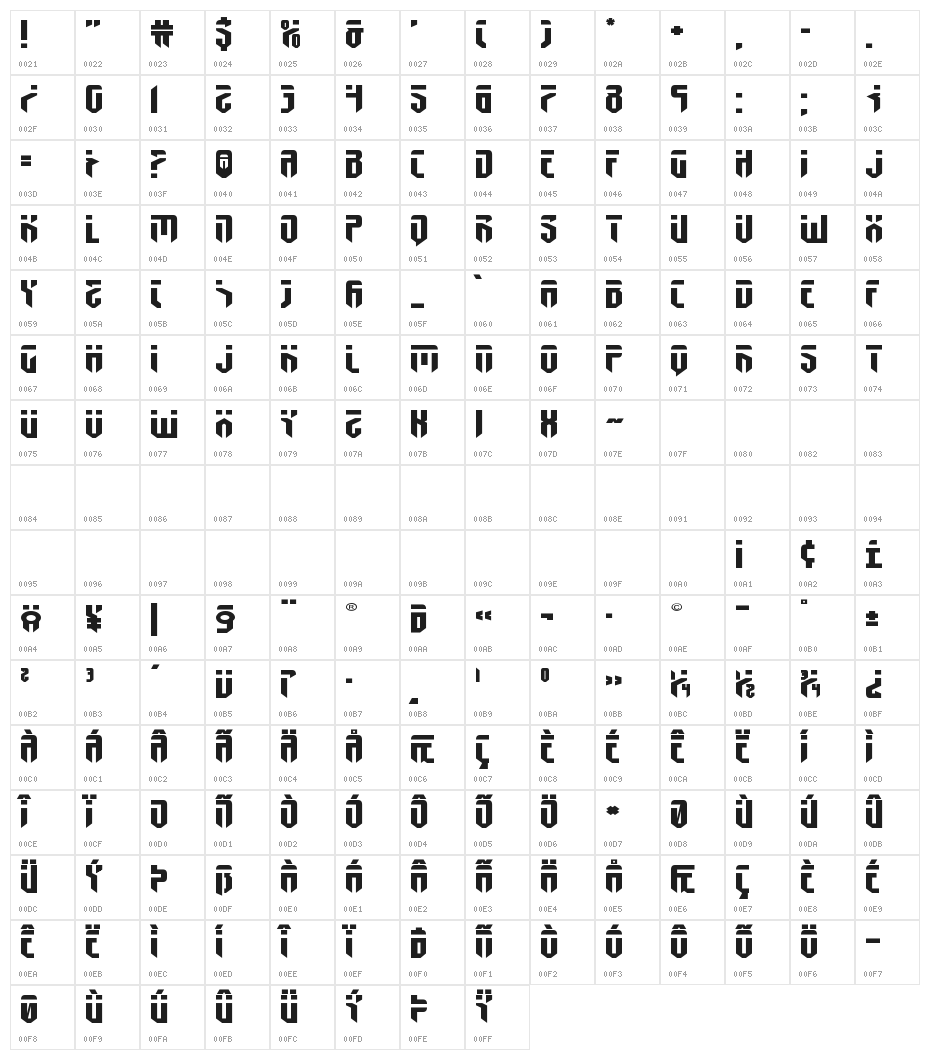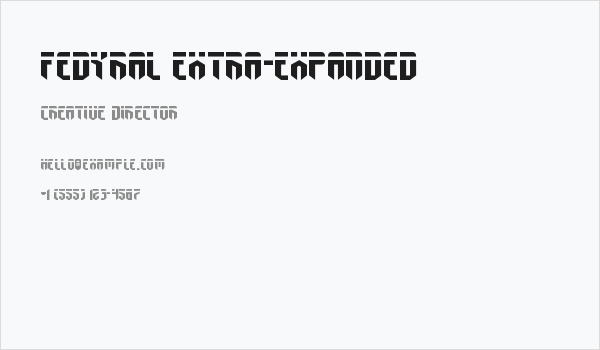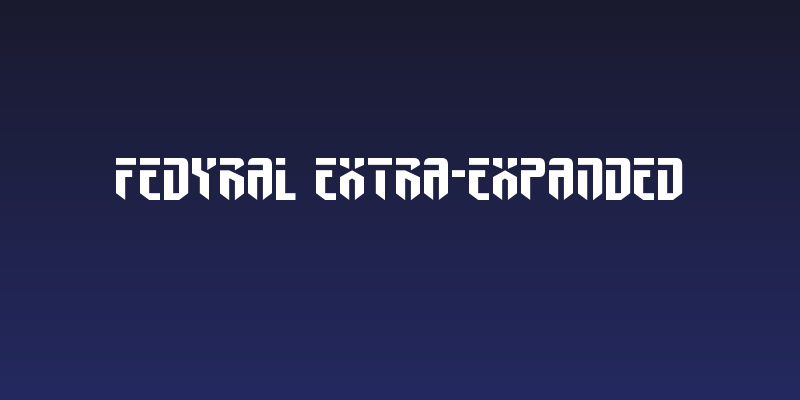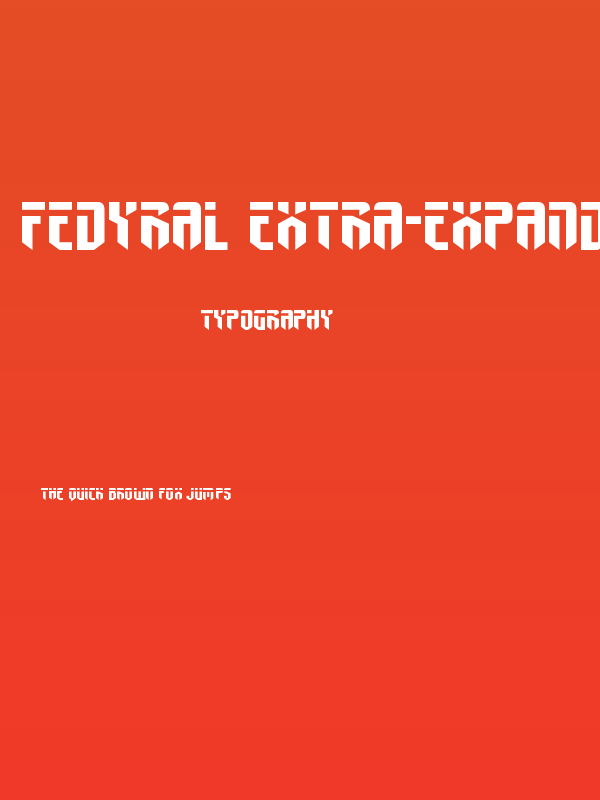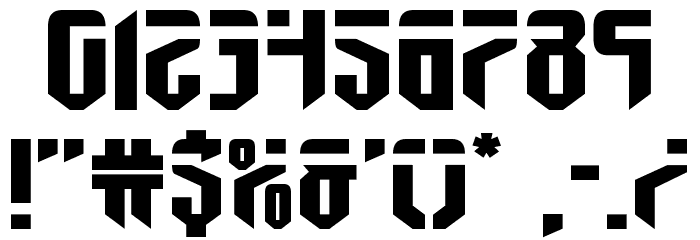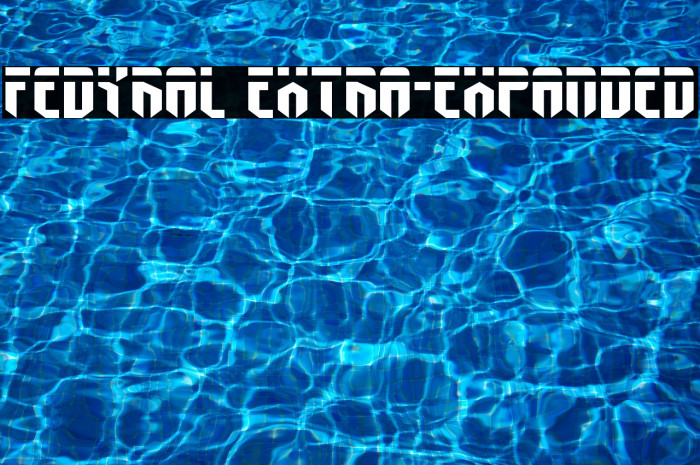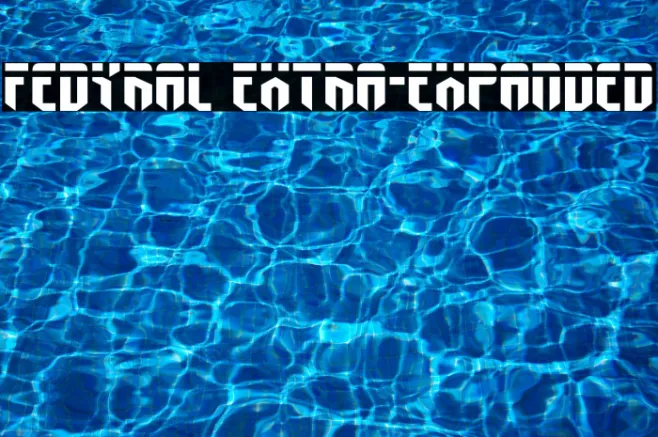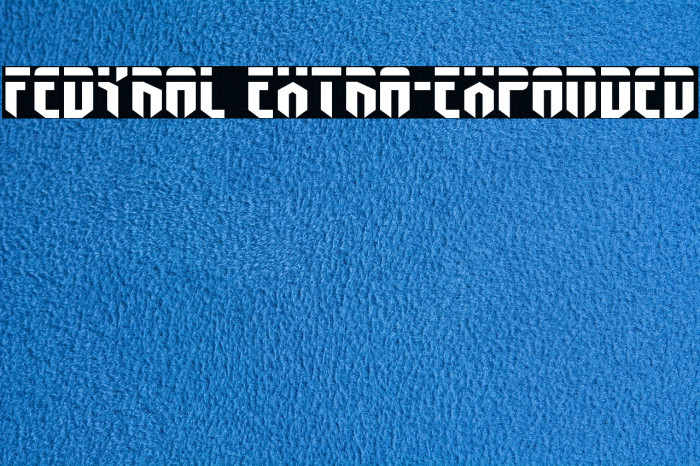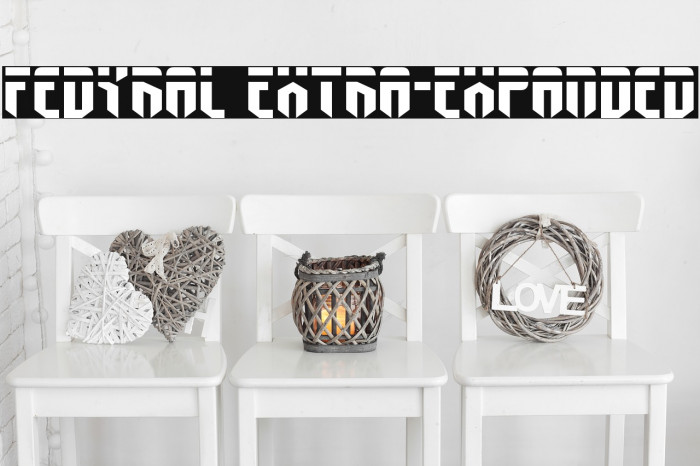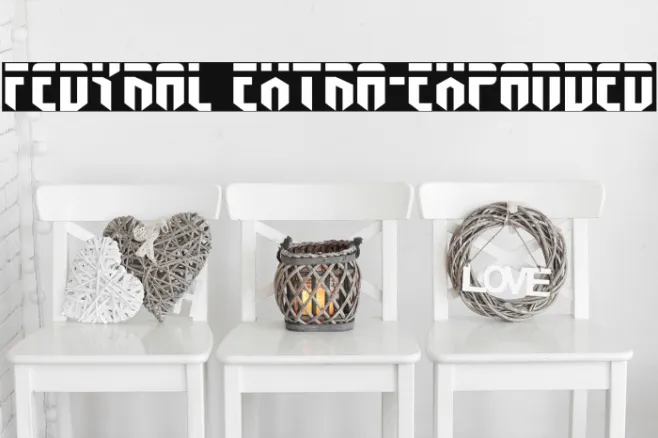
Fedyral Extra-Expanded Font
Fedyral Extra-Expanded Description
This font features a bold and geometric design with a futuristic and industrial feel. The characters are constructed with sharp angles and straight lines, creating a sense of strength and modernity. The uppercase and lowercase letters maintain a consistent style, with unique cutouts and angular forms that add a distinctive edge. The numbers and special characters follow the same design principles, ensuring uniformity across the entire typeface. This font's expanded width gives it a commanding presence, making it ideal for attention-grabbing headlines and impactful designs.
| Proposed Projects | Ideal for sci-fi themed posters, video game graphics, branding for tech companies, and any project requiring a modern, edgy look. |